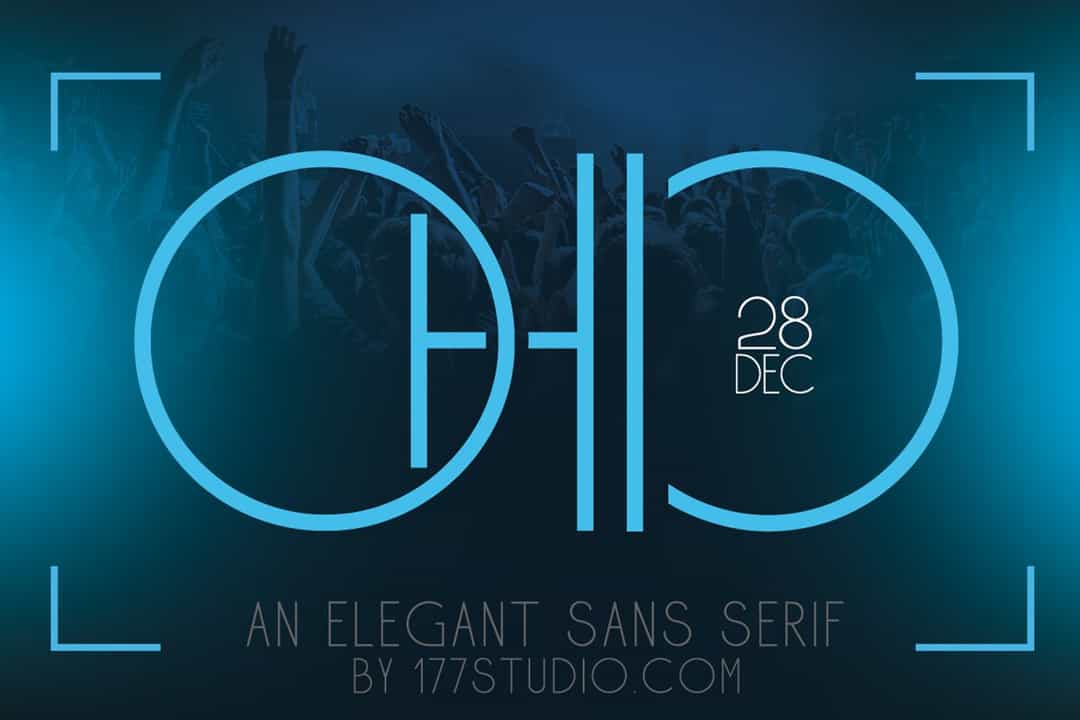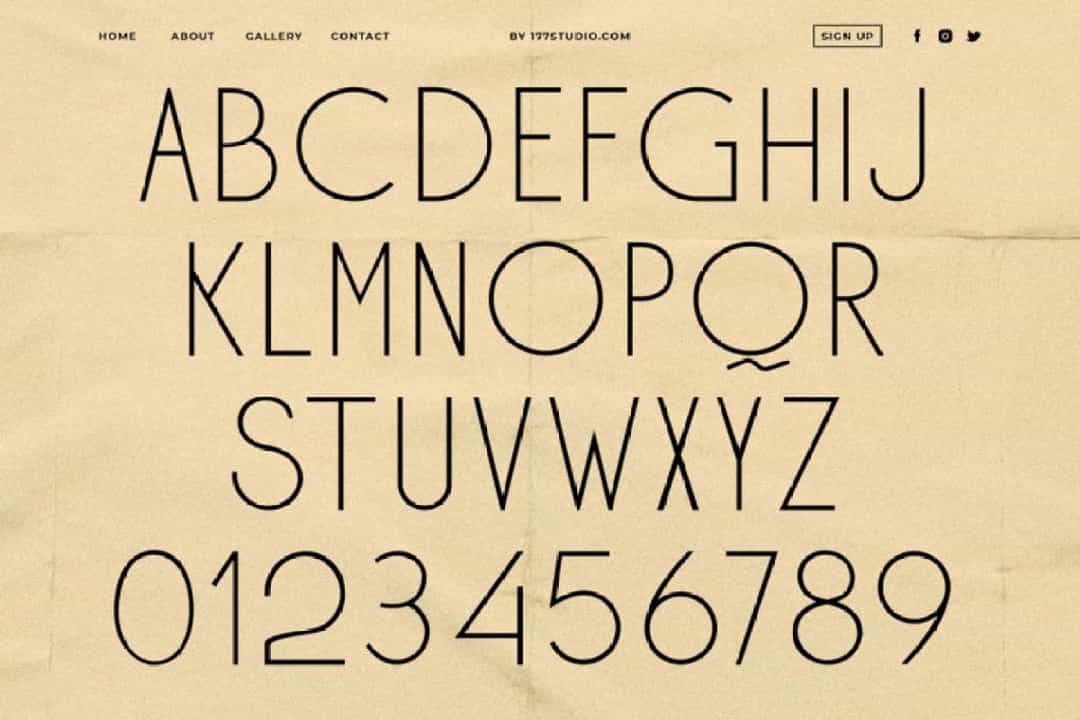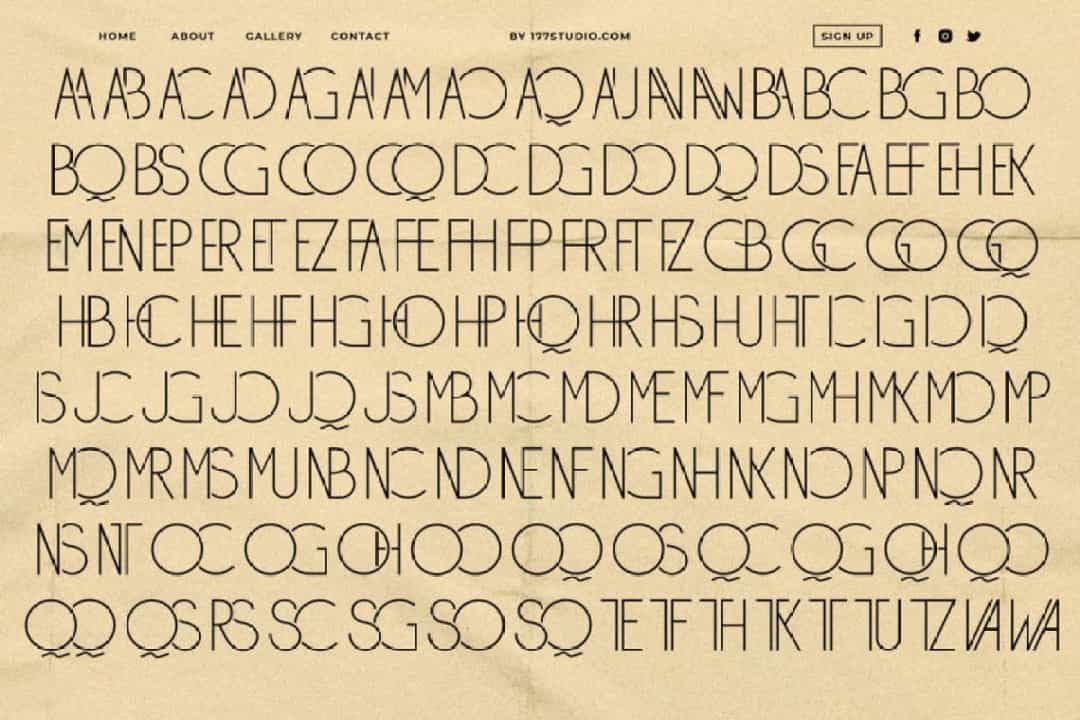
Discover Ohio Font, part of the Sans Serif Basic Personal collection—a versatile and unique font perfect for adding a personal touch to your projects. Download it for free and enjoy crafting designs with style, from invitations to social media posts. This font is available exclusively for personal use, giving you the freedom to create without limits. Unlock your creativity with Ohio Font today!
Ohio is a contemporary Futuristic Sans font which is designed and inspired by iconic minimalistic logo. Ohio can be used for creating brochures, templates videos advertisements branding logos and much more!